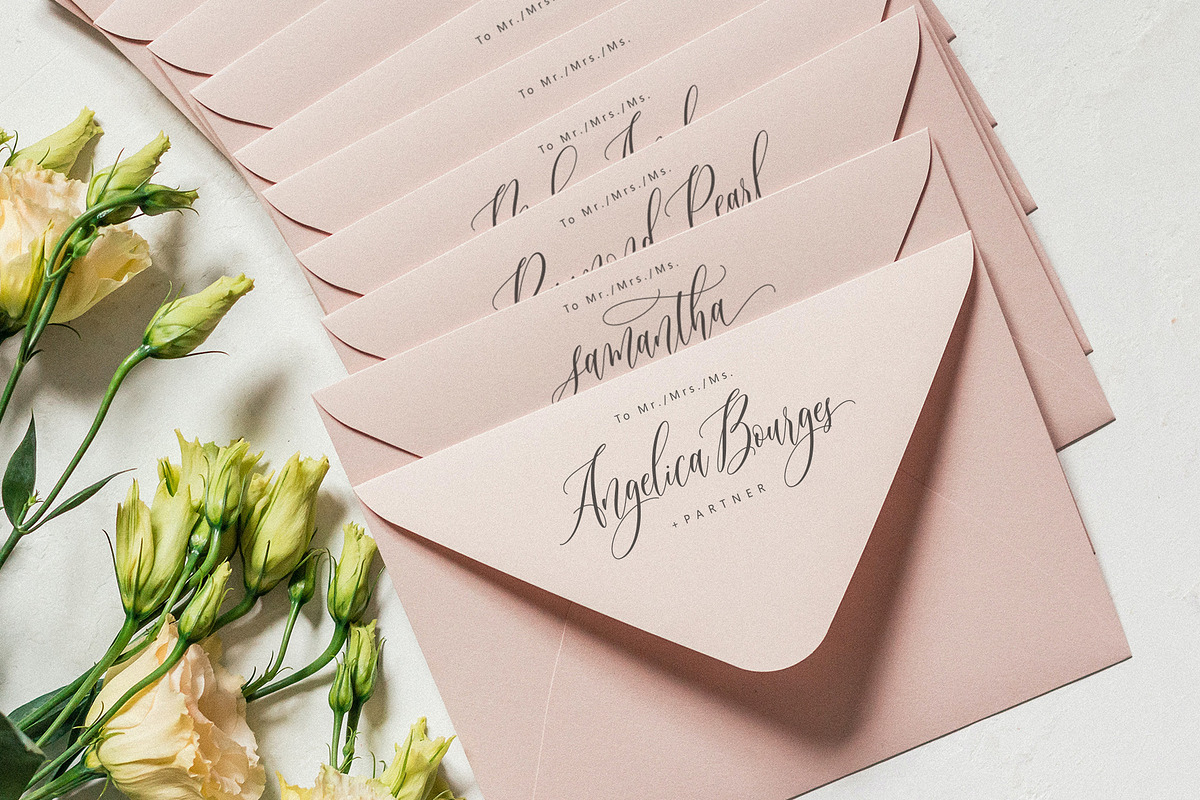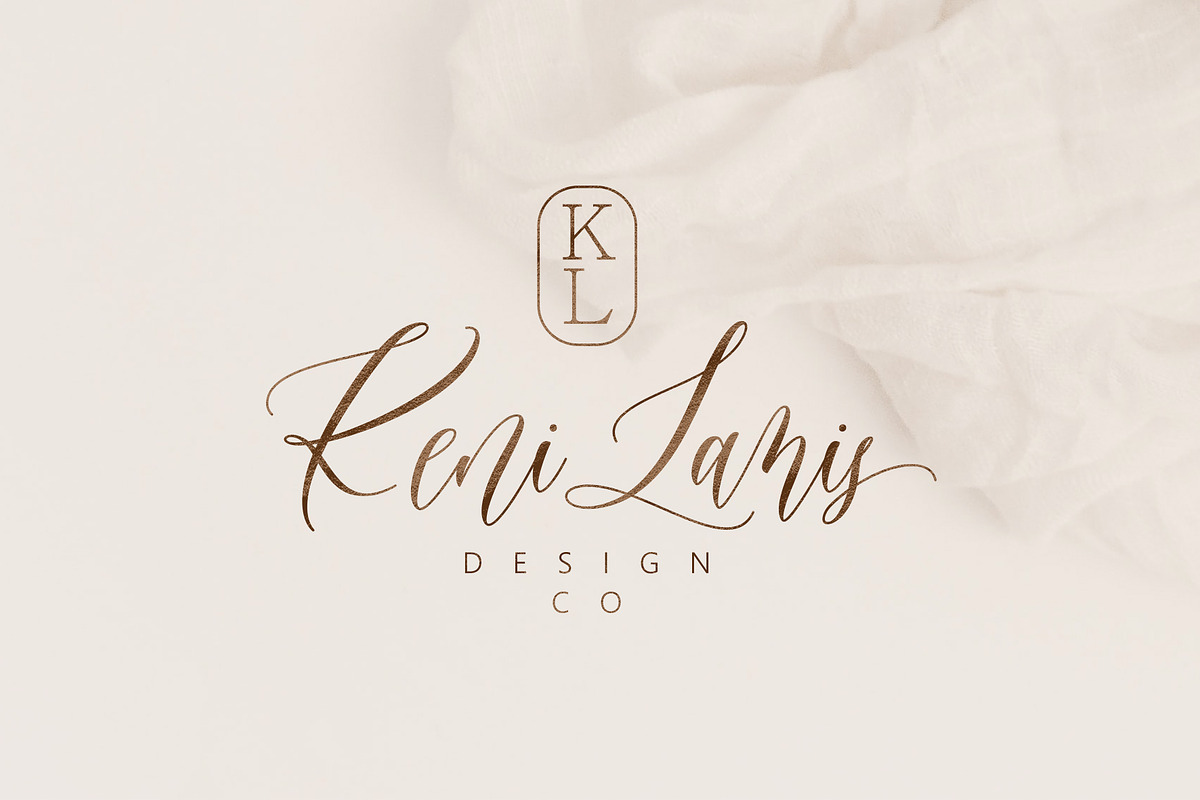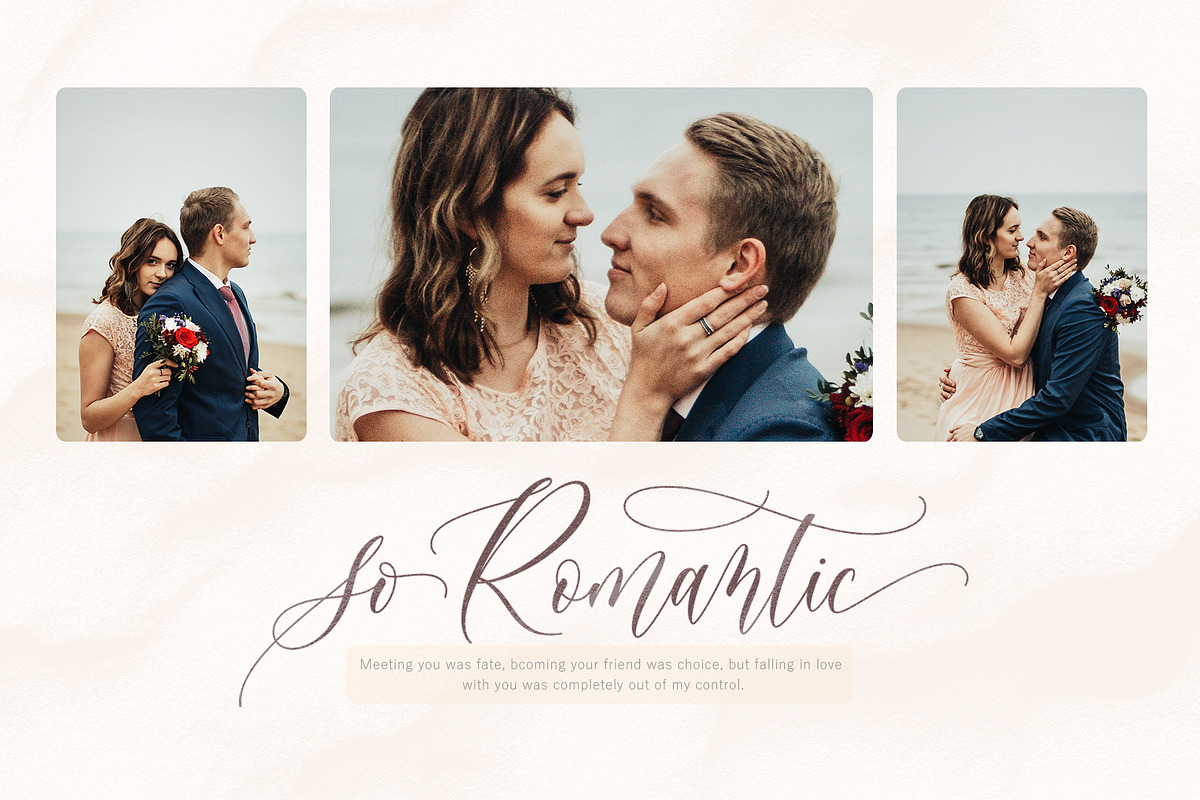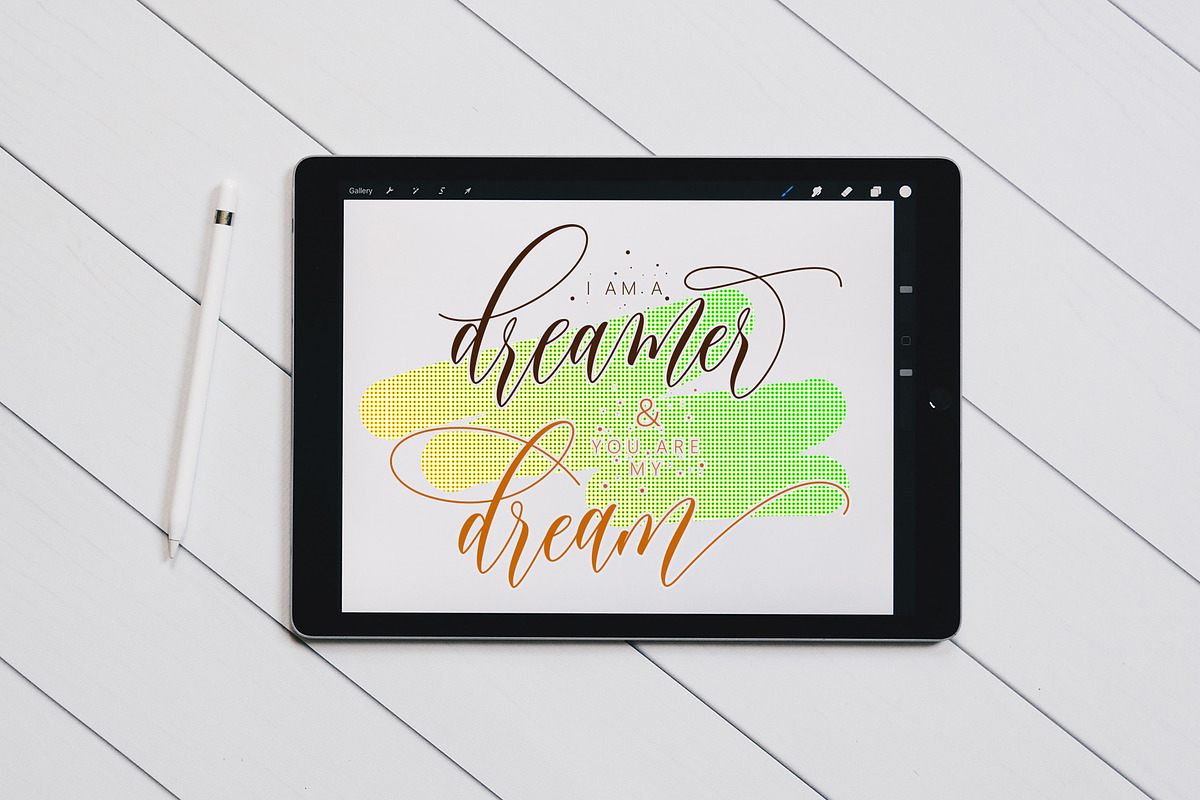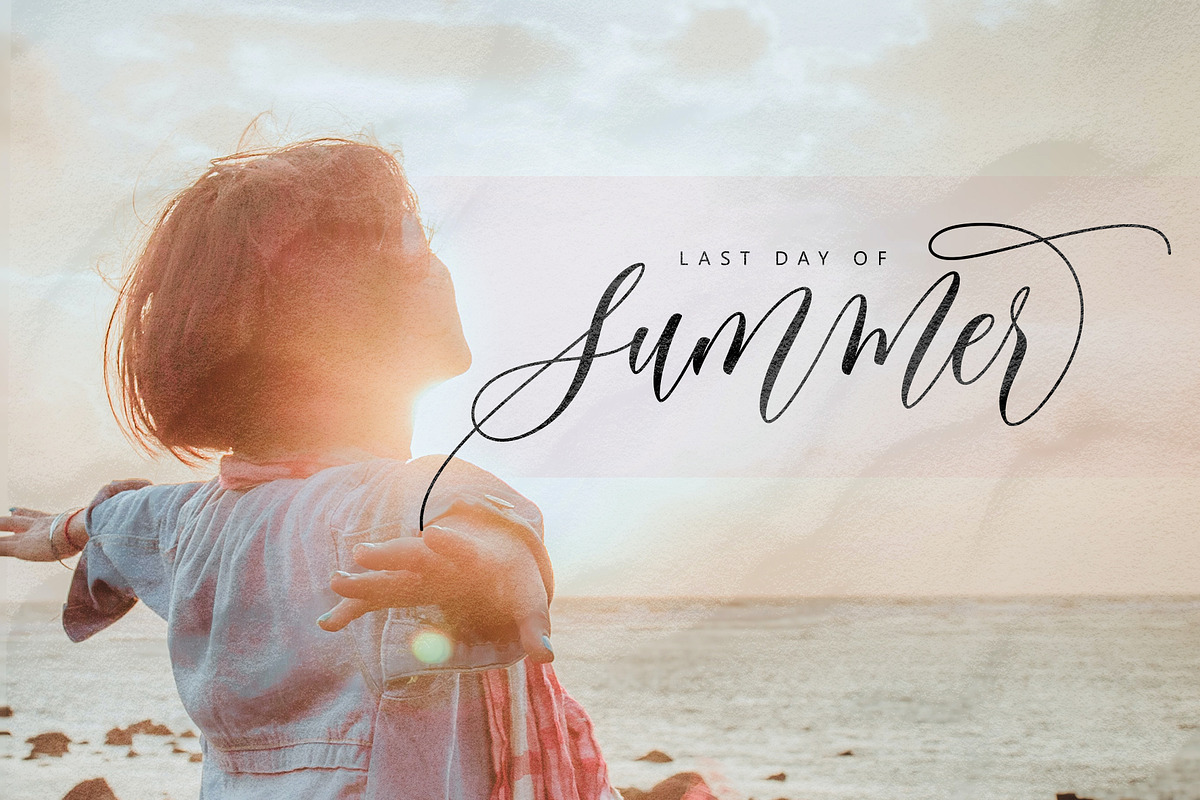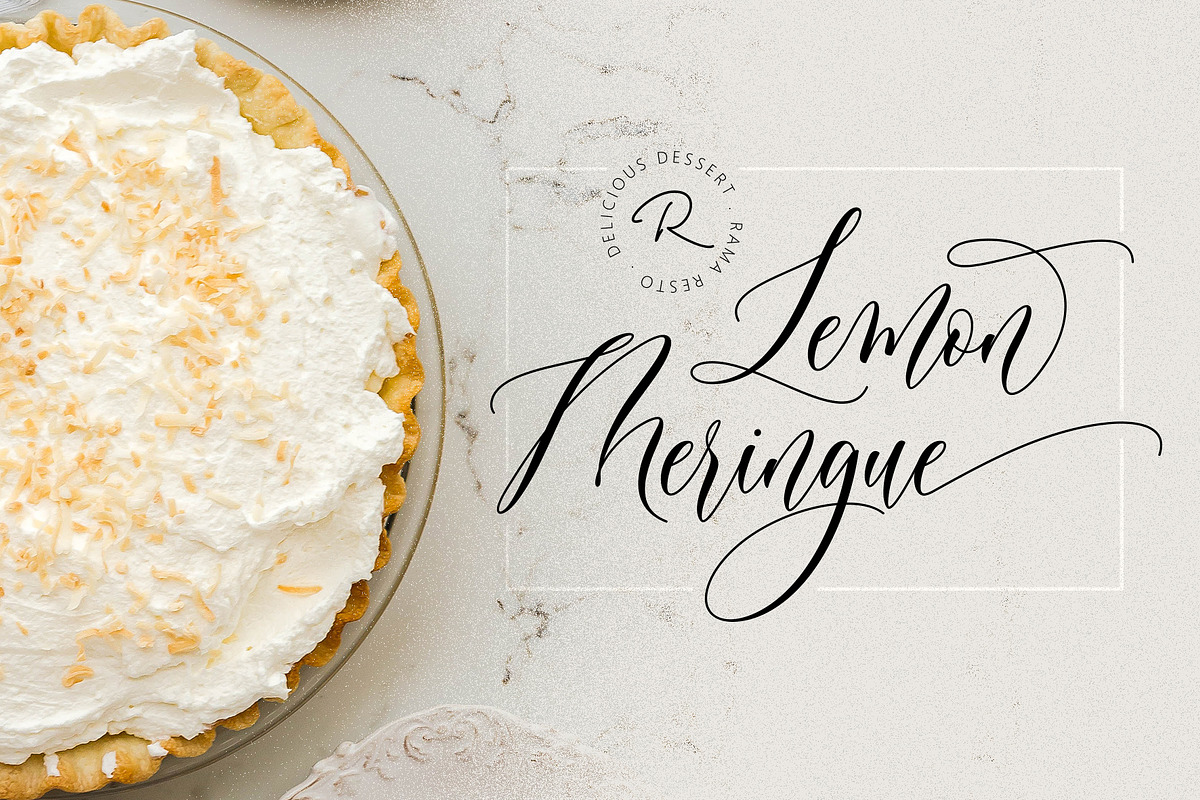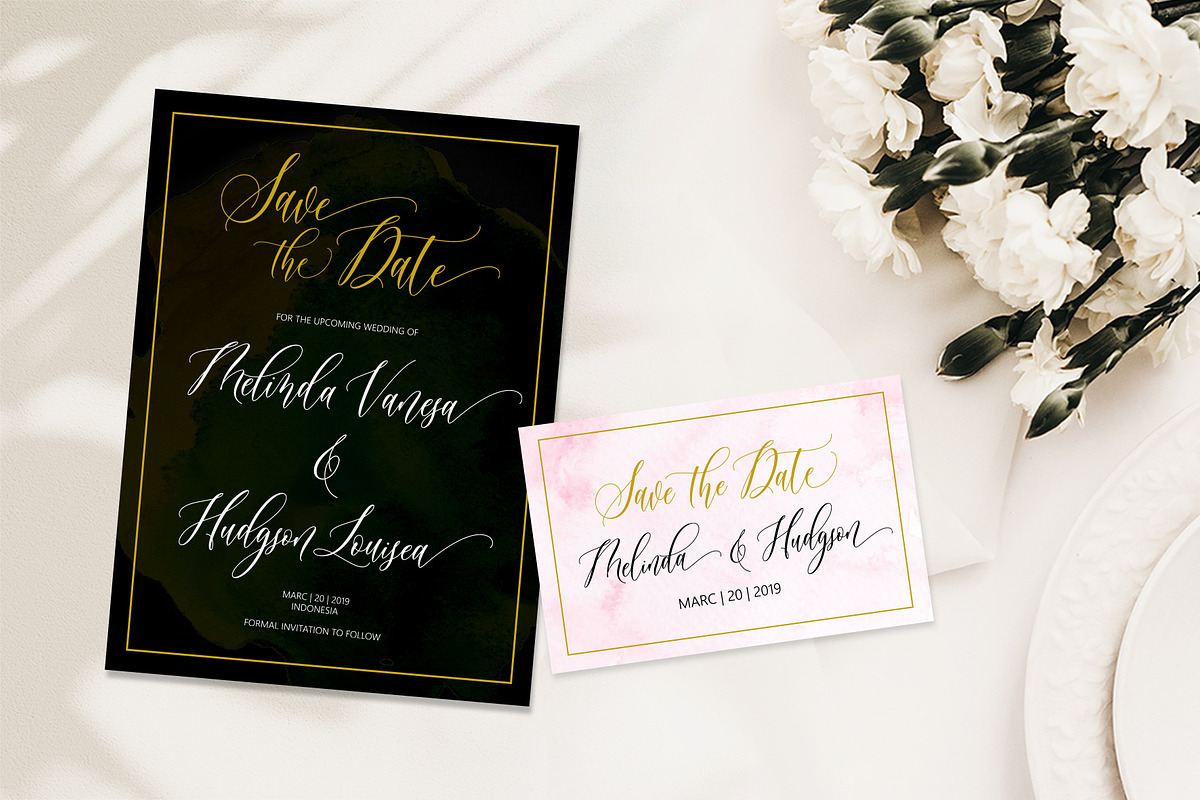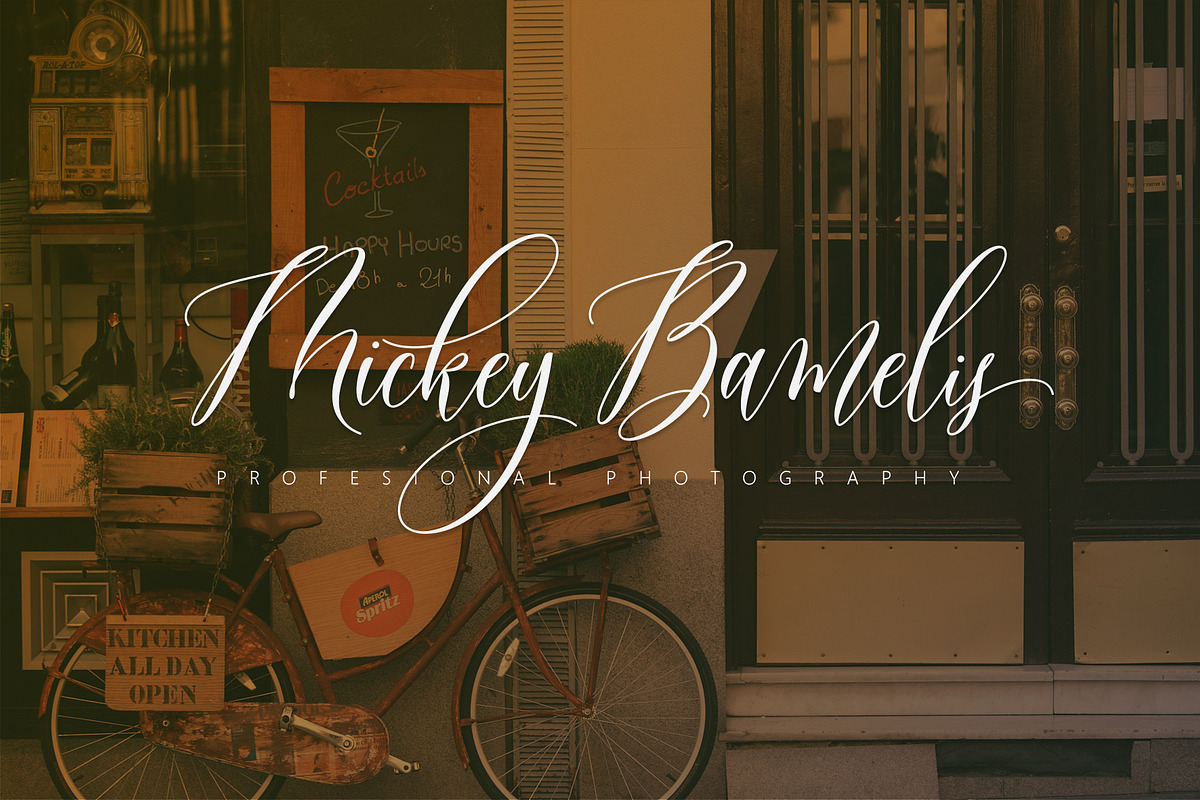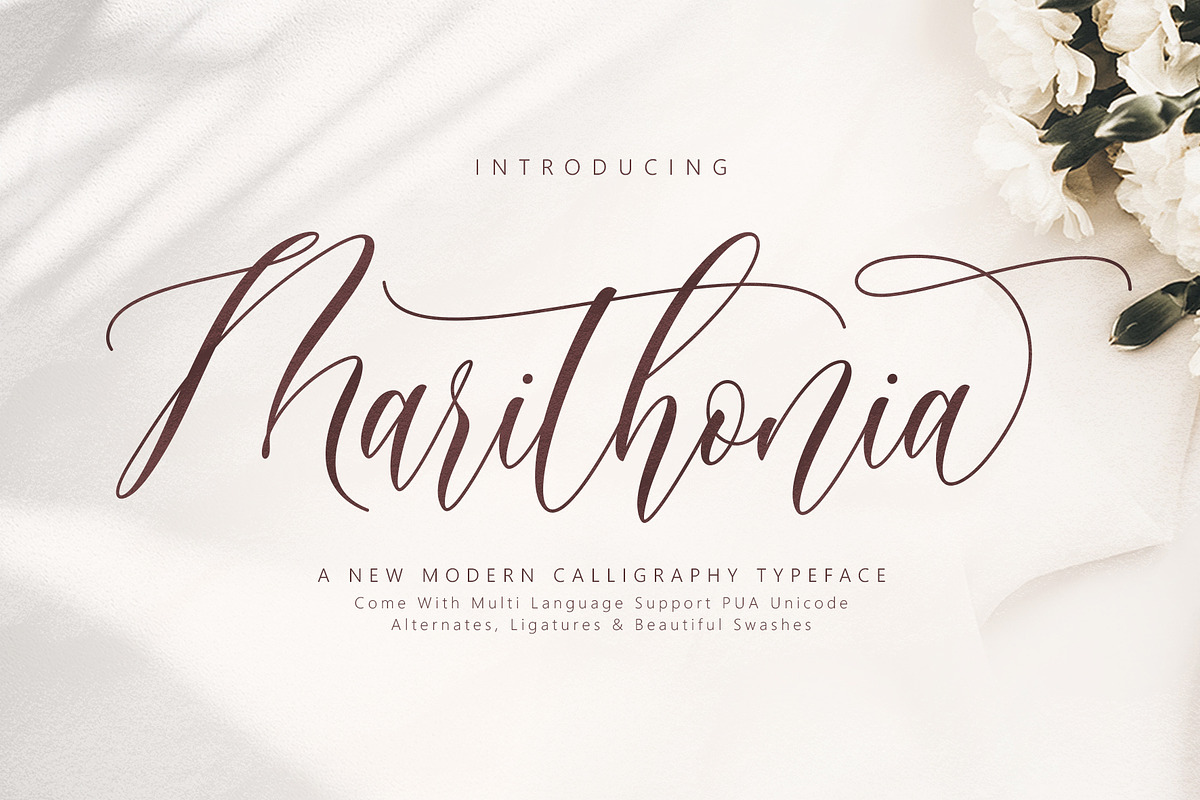
Marithonia Script
Marithonia is a beautiful modern calligraphy script font that is suitable for branding, wedding invitations, greeting cards, posters, name card, quotes, blog header, logo, fashion, apparel, letter, stationery and other projects.
The font has PUA Unicode (Private Use Areas - font specific code). That all the alternative characters (with flourishes and swirly lines) can be easily accessed in full through Windows and Mac.